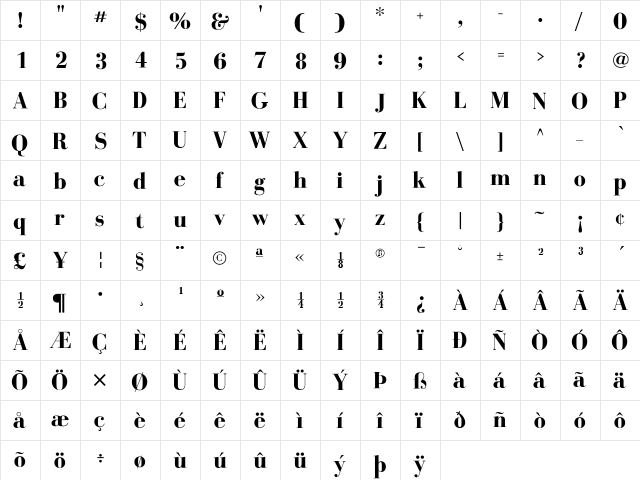
BodoniFLF Bold
Design Context for BodoniFLF Typeface
BodoniFLF offers clean, dependable letterforms without strong stylistic allegiance, making it a practical choice for designers who need flexibility. Its bold stroke weight gives it real presence on the page.